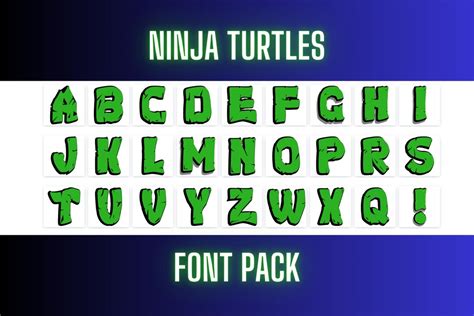
Font Ninja Turtles. Teenage mutant ninja turtles, also known as tmnt, is a famous kids cartoon and movie series. At least the turtles part.
Teenage mutant ninja turtles, also known as tmnt, is a famous kids cartoon and movie series. Web this thick, distressed typeface is based on the popular clasic teenage mutant ninja turtles logo. At least the turtles part. Web this is the font for the nickelodeon teenage mutant ninja turtles title.
Web this thick, distressed typeface is based on the popular clasic teenage mutant ninja turtles logo. Teenage mutant ninja turtles, also known as tmnt, is a famous kids cartoon and movie series. Web this is the font for the nickelodeon teenage mutant ninja turtles title. Web this thick, distressed typeface is based on the popular clasic teenage mutant ninja turtles logo. At least the turtles part.